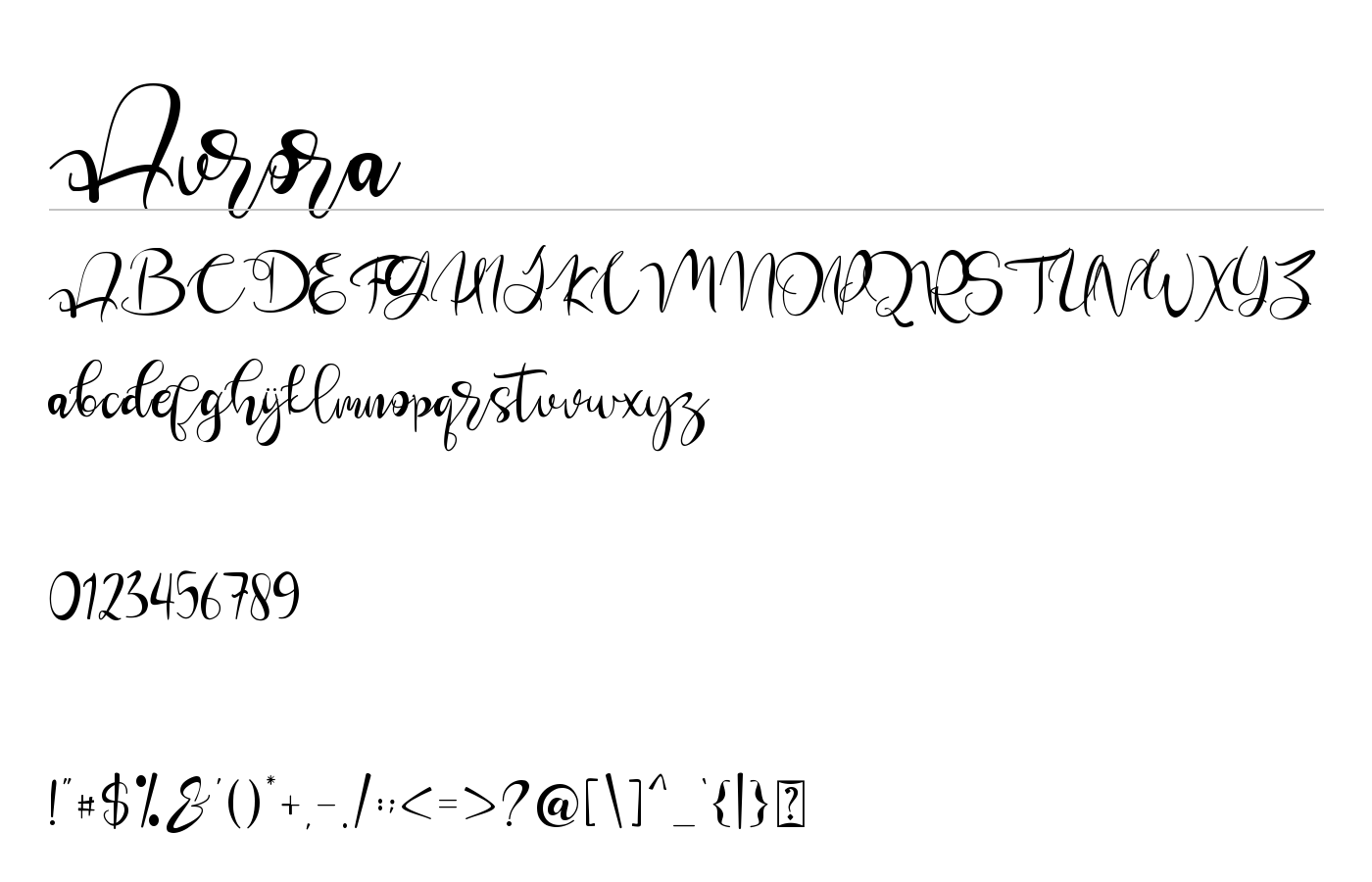
Aurora is a graceful, handwritten script font with elegant, flowing strokes that combine delicate thin lines with occasional bold curves, creating a charming and artistic feel. Its distinctive letterforms, featuring fluid connections and decorative flourishes, make it ideal for invitations, branding, and creative projects that seek a personal, sophisticated touch. This font works beautifully in designs that aim to express elegance, creativity, and a handcrafted aesthetic.
Aurora Font
About Aurora Font
| Font family | Aurora Font |
| Designer | Letterara 2019 |